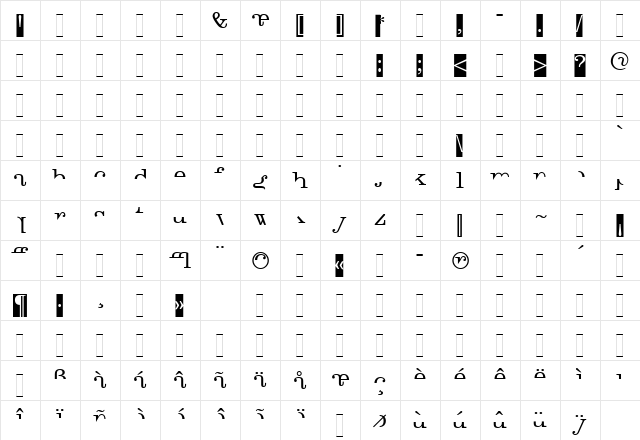
Canyou (Plain)
Design Context for Canyou Typeface
Canyou takes a measured approach to typography — its balanced proportions and neutral character make it a reliable workhorse for both digital and print work.